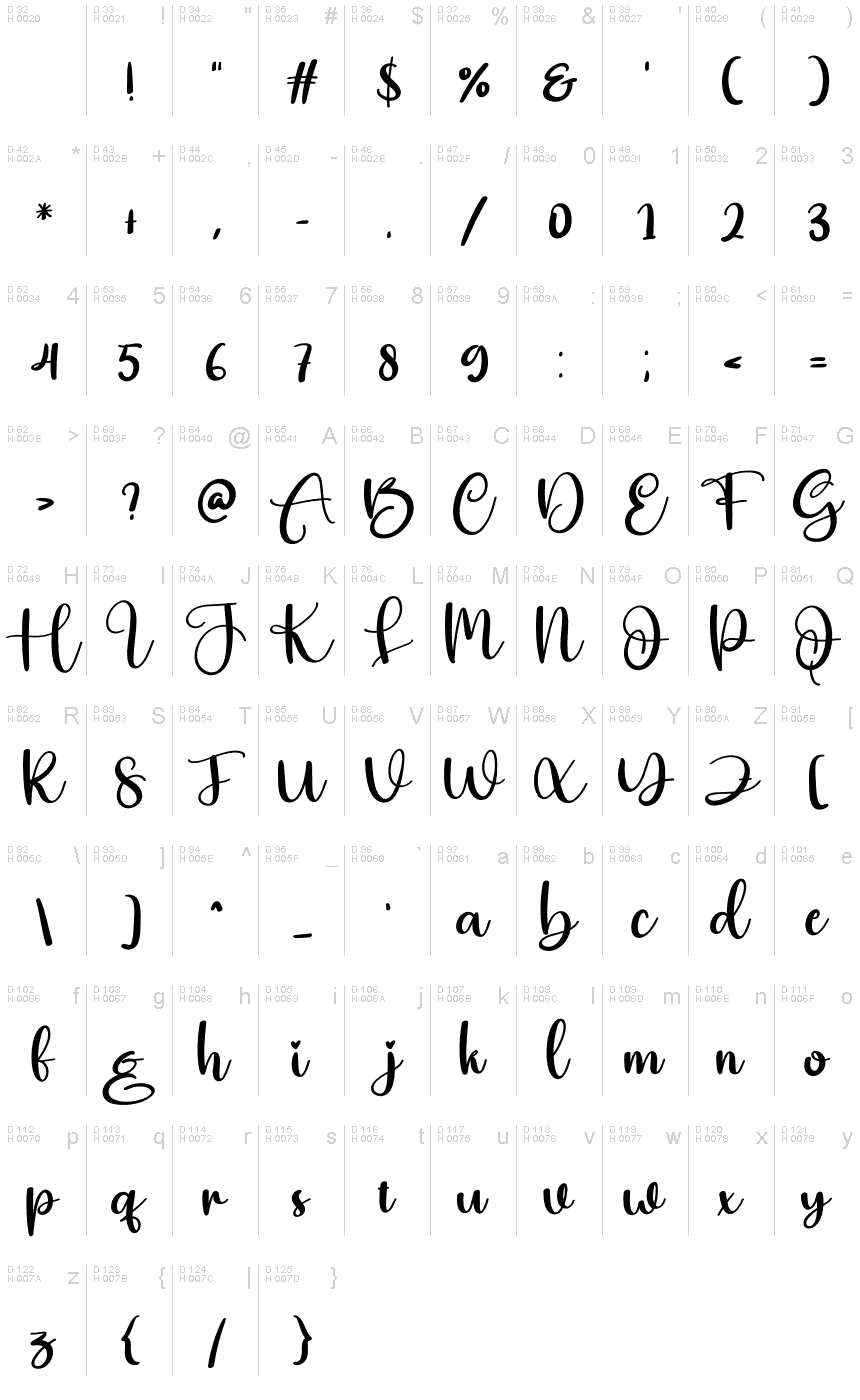
Beelover
Beelover, created by Scratchones, is a captivating handwritten font with a semi-light weight.
Its unique style brings a touch of whimsy to any project, making it perfect for children's books and playful branding. The flowing curves and organic feel of Beelover make it an excellent choice for nature-inspired designs such as botanical illustrations or eco-friendly packaging.
Whether used in print or digital media, this font adds a delightful charm that will surely capture the hearts of your audience.